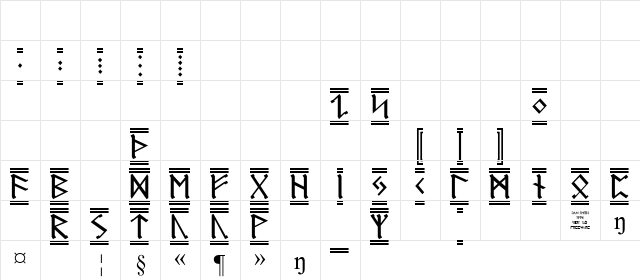
Germanic Runes-2 Regular
Germanic Runes-2 is a composed and adaptable typeface that performs quietly and consistently across a wide range of design contexts.